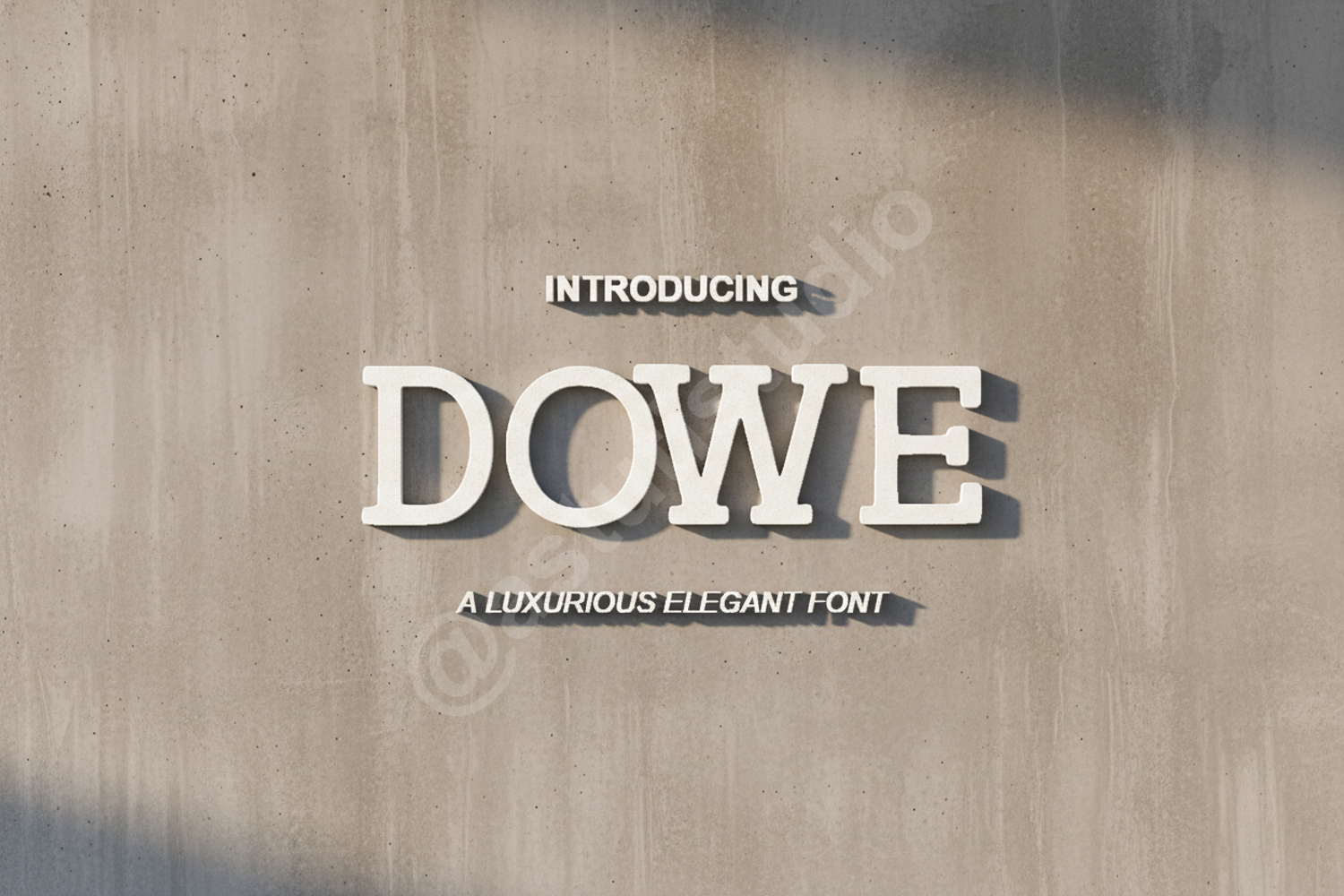
Dowe - Modern Minimalist Sans Serif Typeface
Dowe
Dowe is a premium sans serif font that embodies modern elegance and minimalist design. Crafted with precision, this typeface offers clean lines and balanced proportions, ensuring your projects look sophisticated and professional. Whether you are building a brand from scratch or looking for the perfect headline font, Dowe provides the versatility needed for high-end design work.
- Branding and Visual Identity: Create memorable logos and cohesive brand guidelines.
- Editorial Design: Perfect for sleek magazine layouts and contemporary book covers.
- Digital Marketing: Enhance web headers, UI elements, and social media graphics.
- Product Packaging: Add a high-end, premium feel to modern product designs.
- Wedding Stationery: Ideal for minimalist invitation suites and event signage.